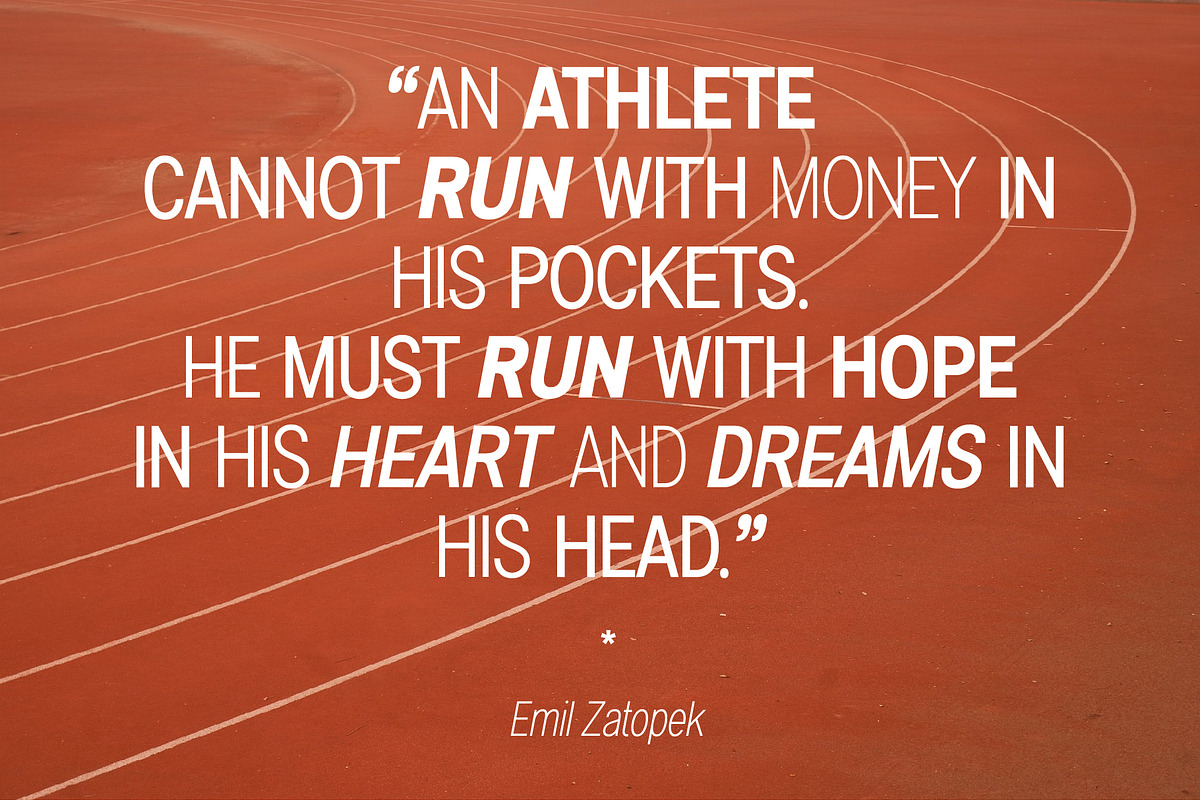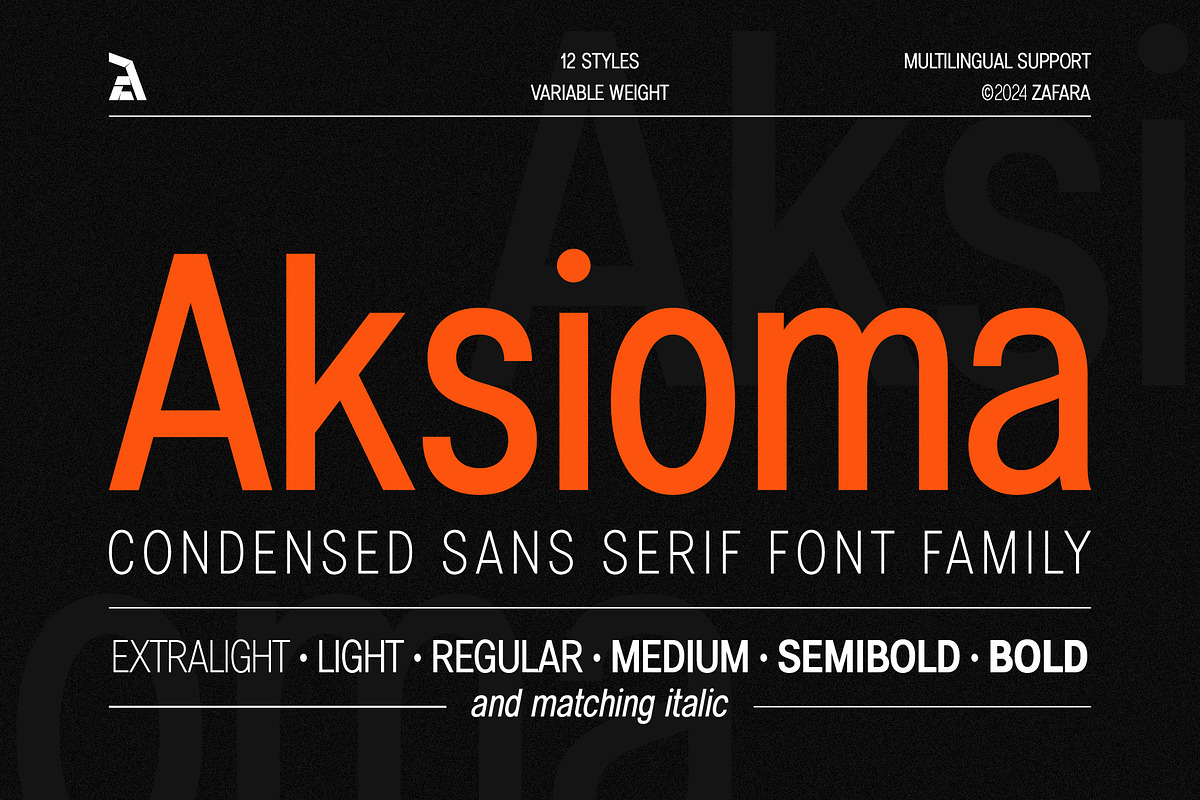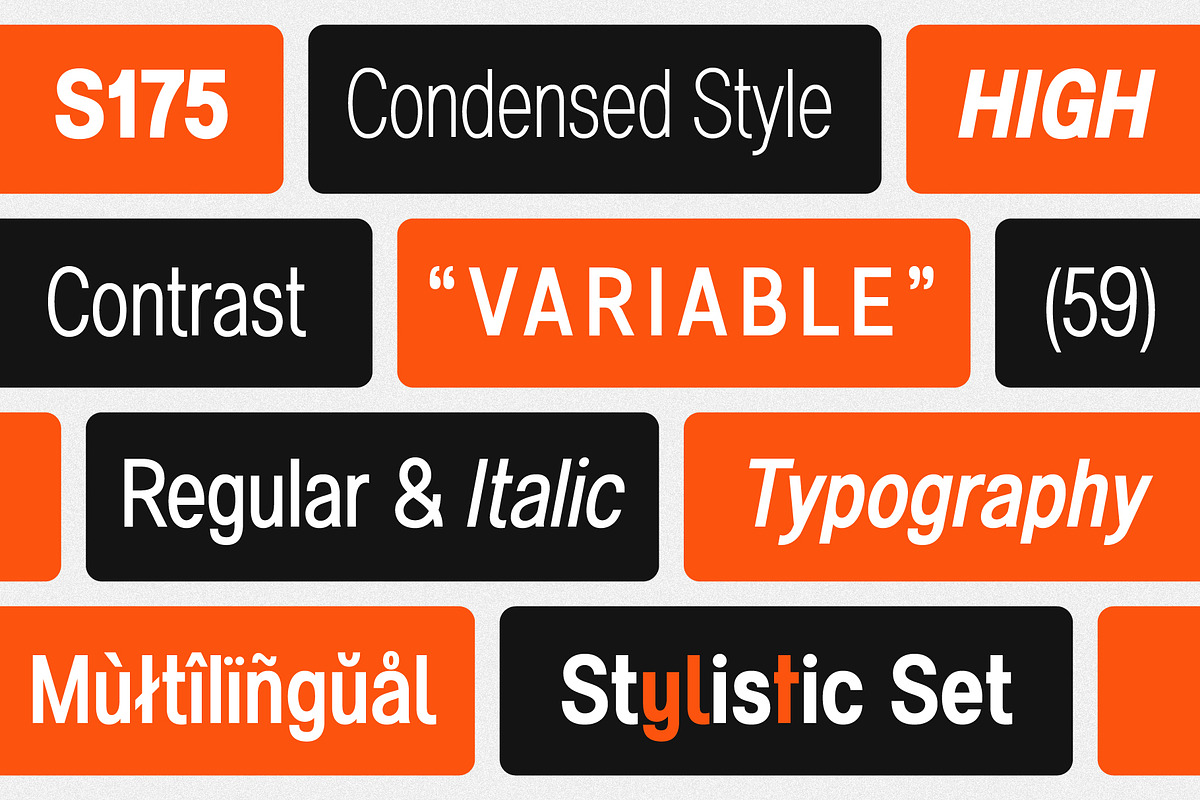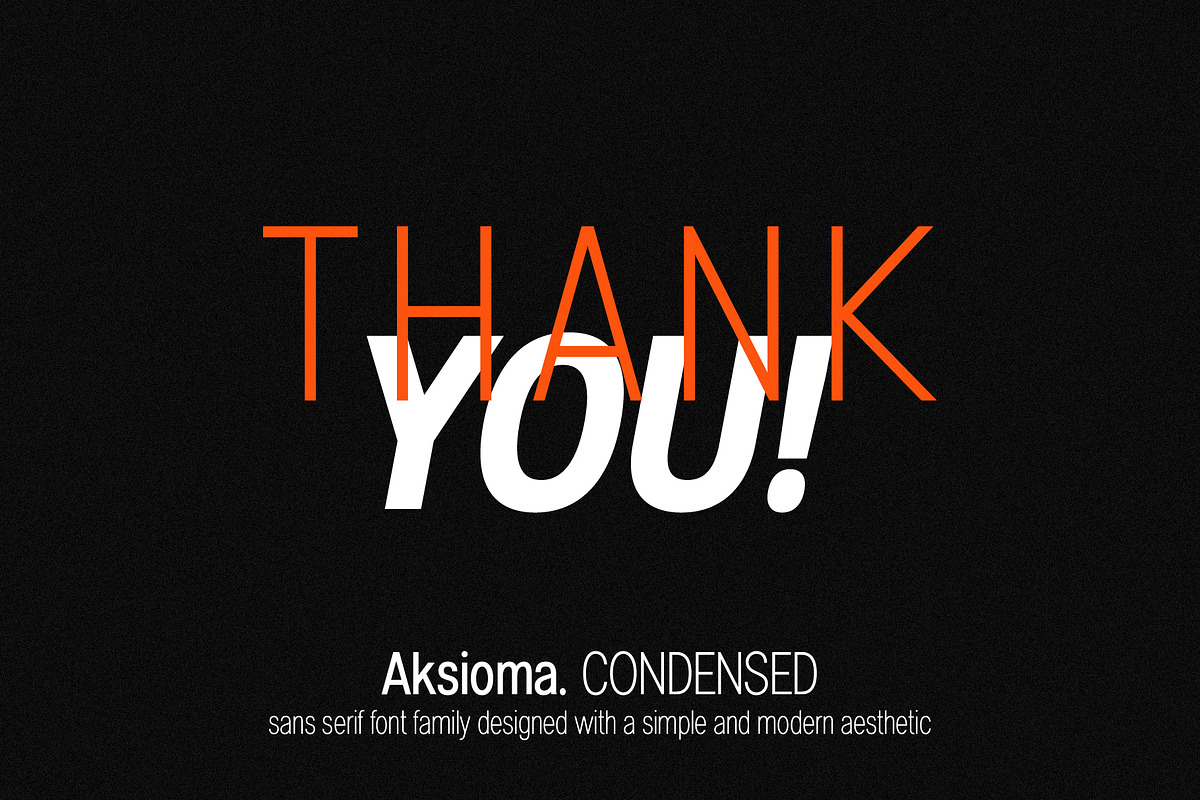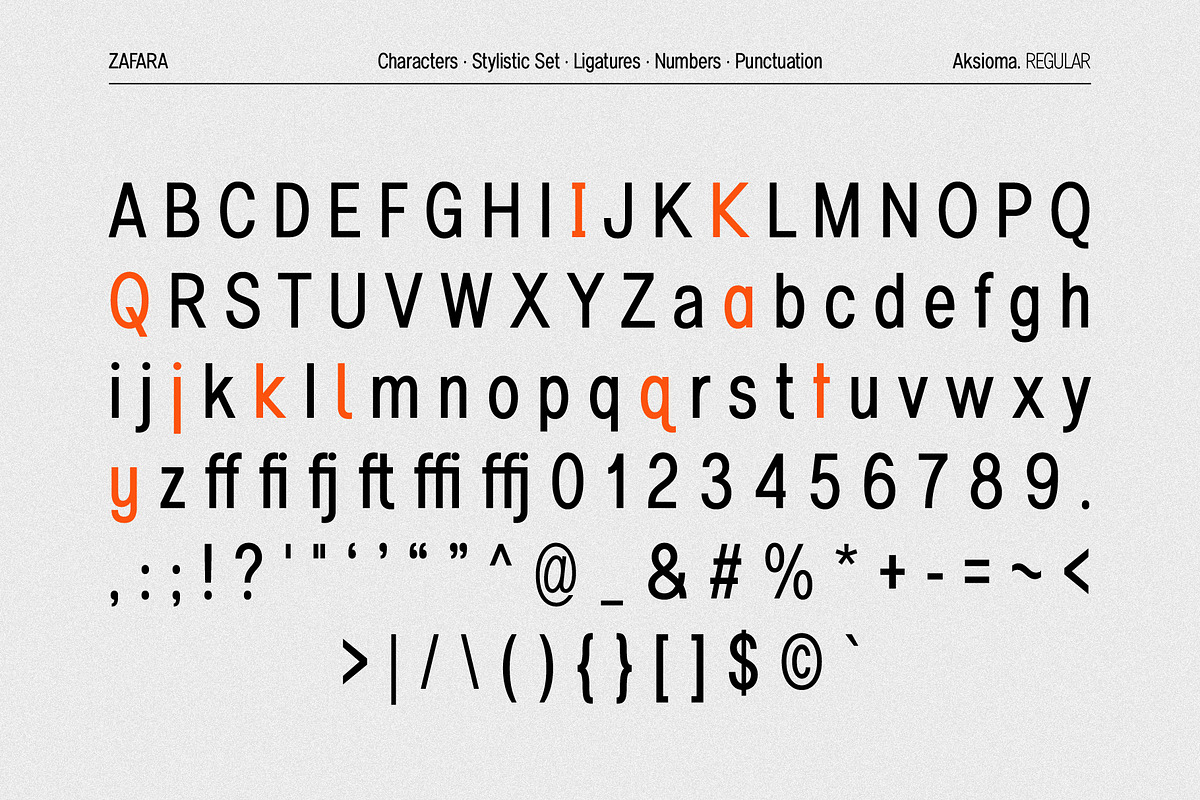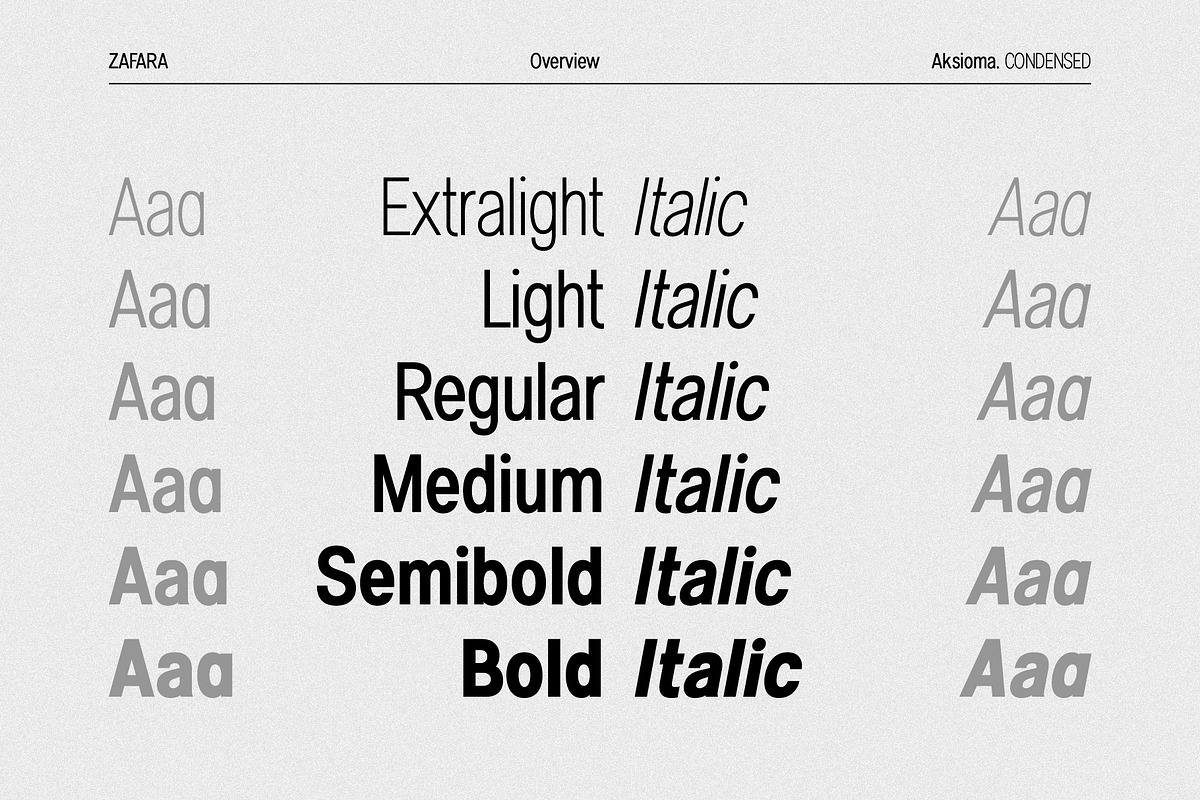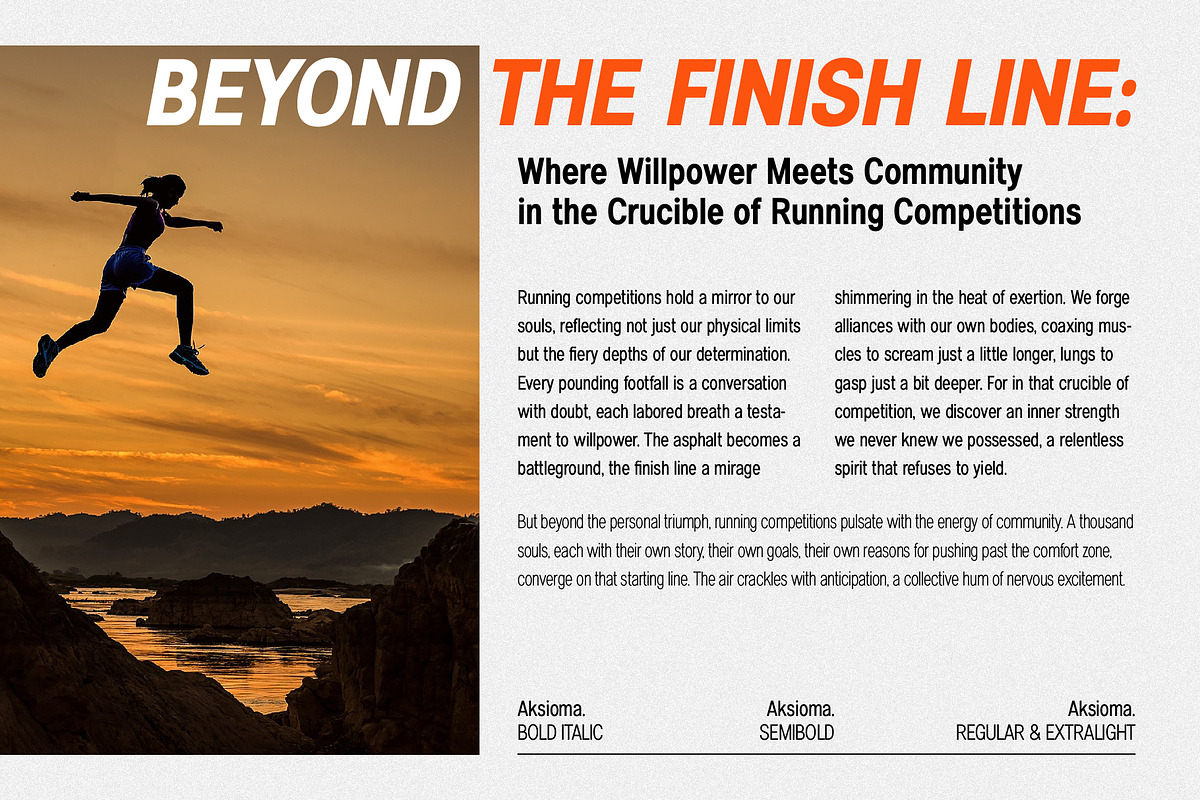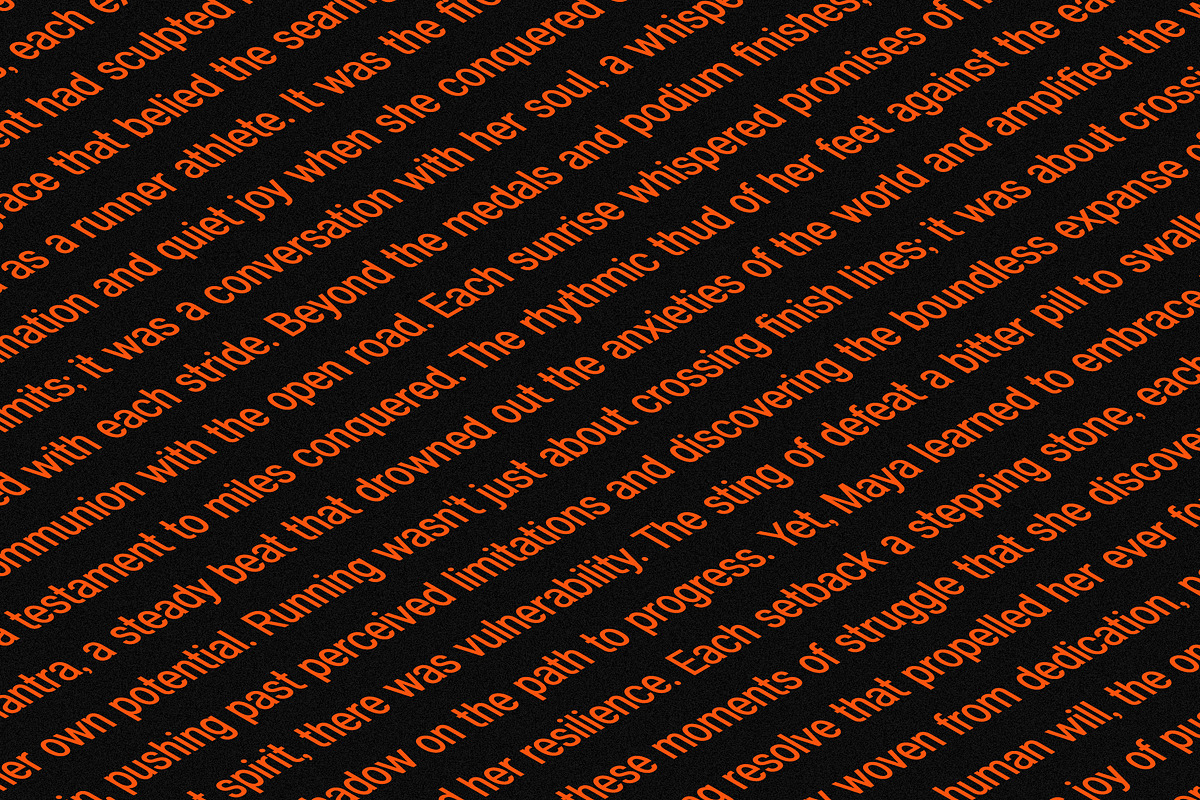
Aksioma - Condensed sans serif
Aksioma is a condensed sans serif font family designed with a simple and modern aesthetic. Overall, the font is designed for versatile use and offers practical space-saving benefits and distinctive visual impact. In general, it is often used for titles for posters, book covers, websites, brochures, business cards, logos, or other needs that enhance the visual appeal of your designs.
Aksioma font family is a great choice for a variety of design projects. It is easy to read at a variety of sizes, and it has a clean, modern look that can be used to create a variety of effects.
The details:
- 212 glyphs: uppercase, lowercase, ligatures, multilingual, numbers, punctuation
- 6 weight: extralight, light, regular, medium, semibold, bold
- 6 italics